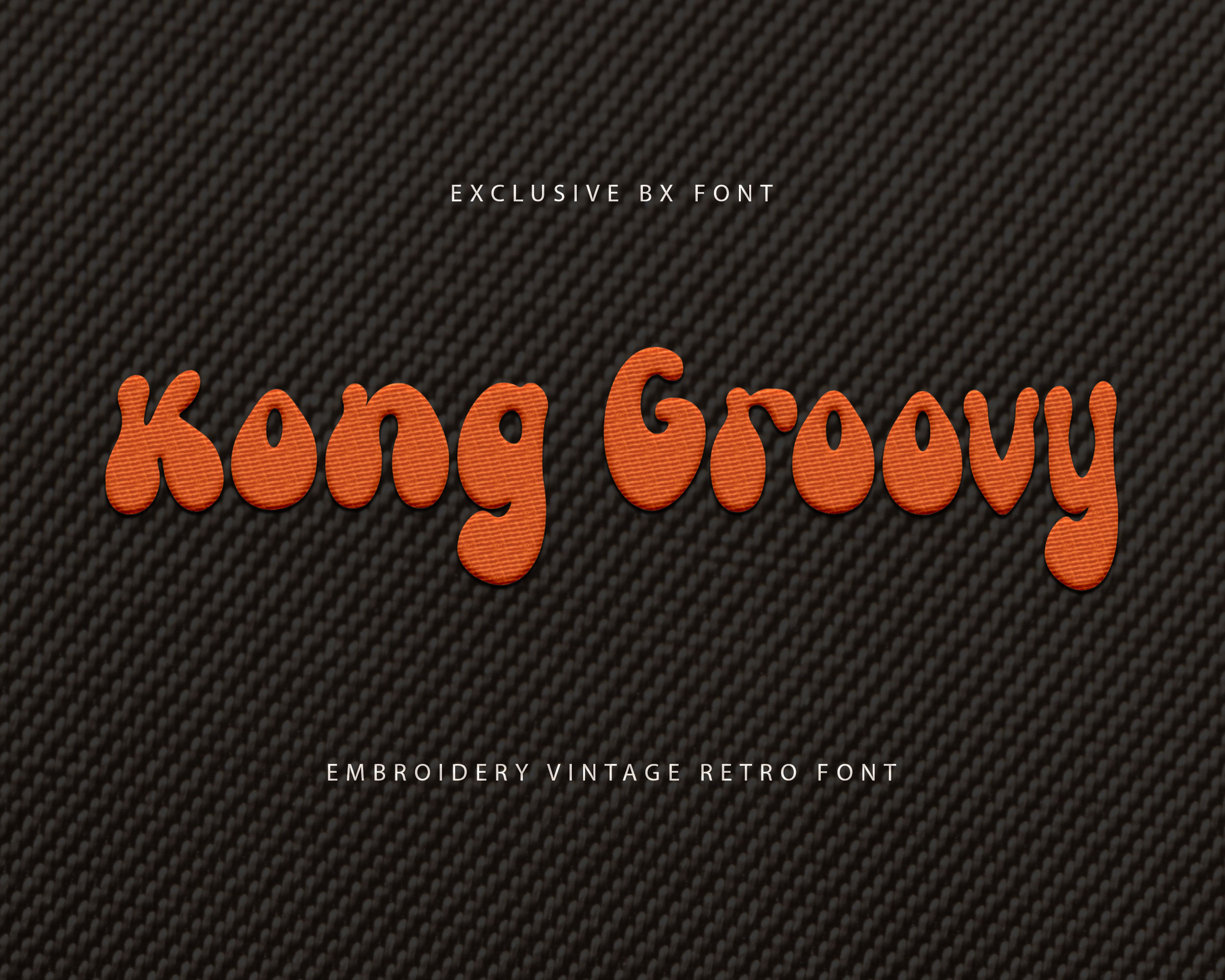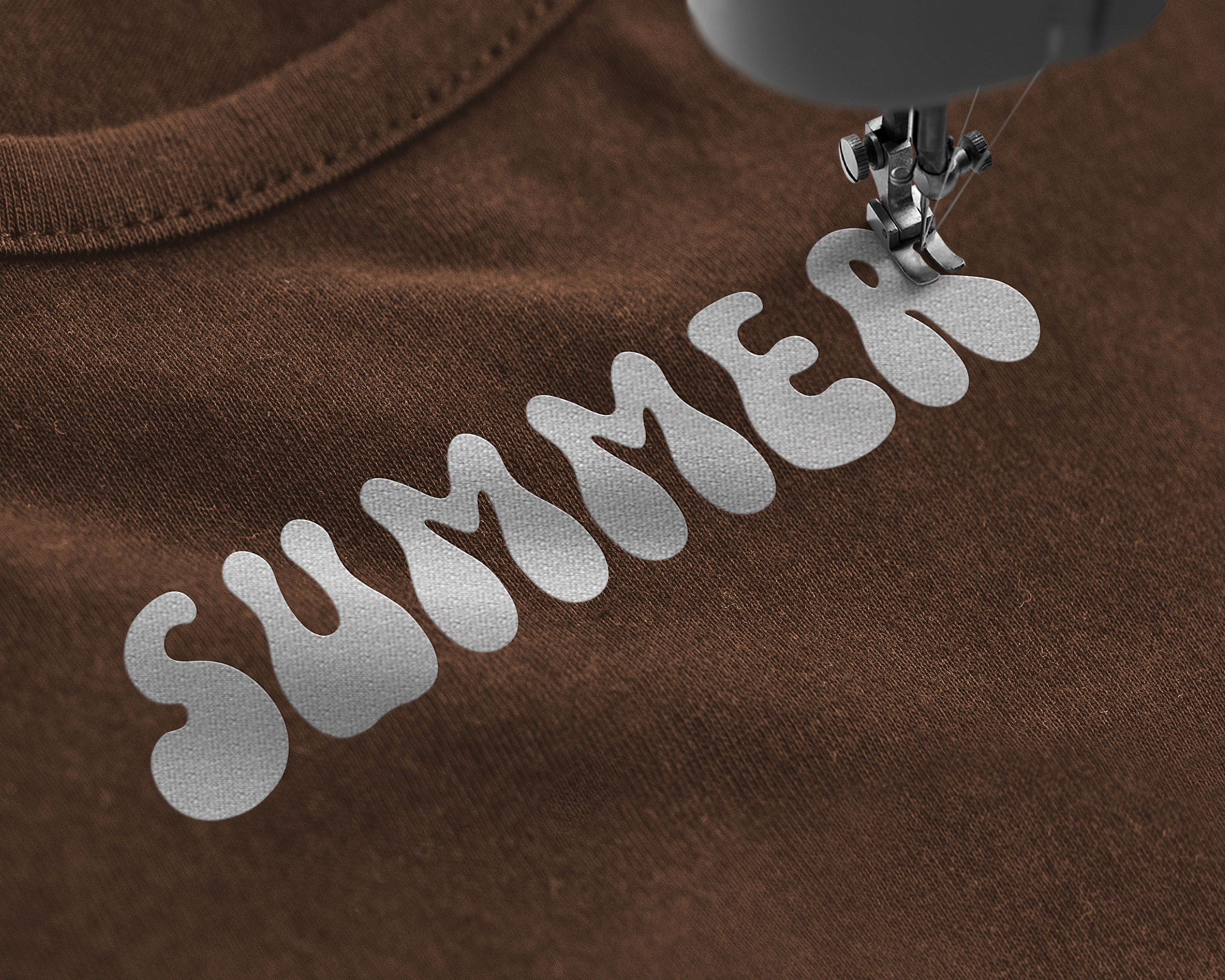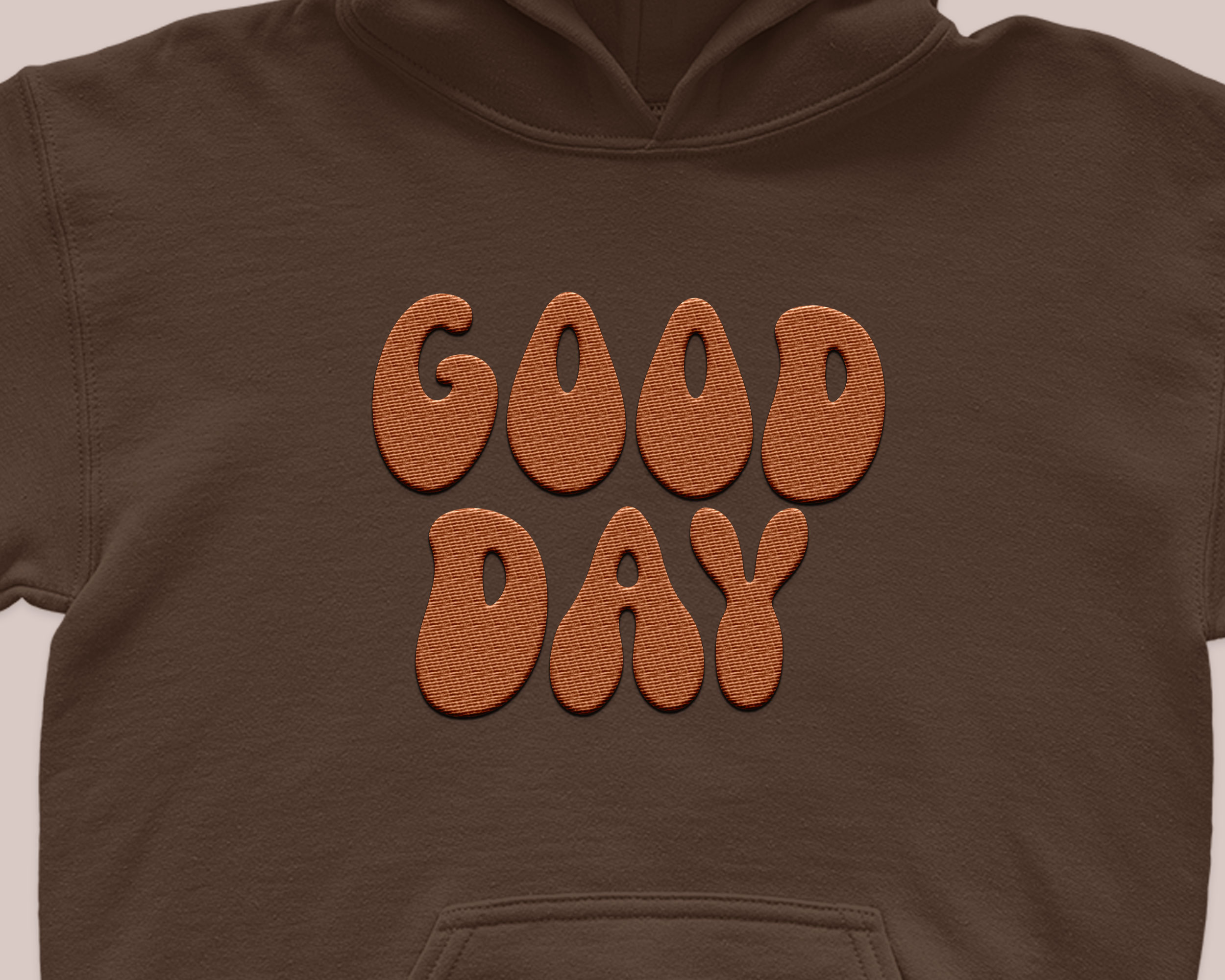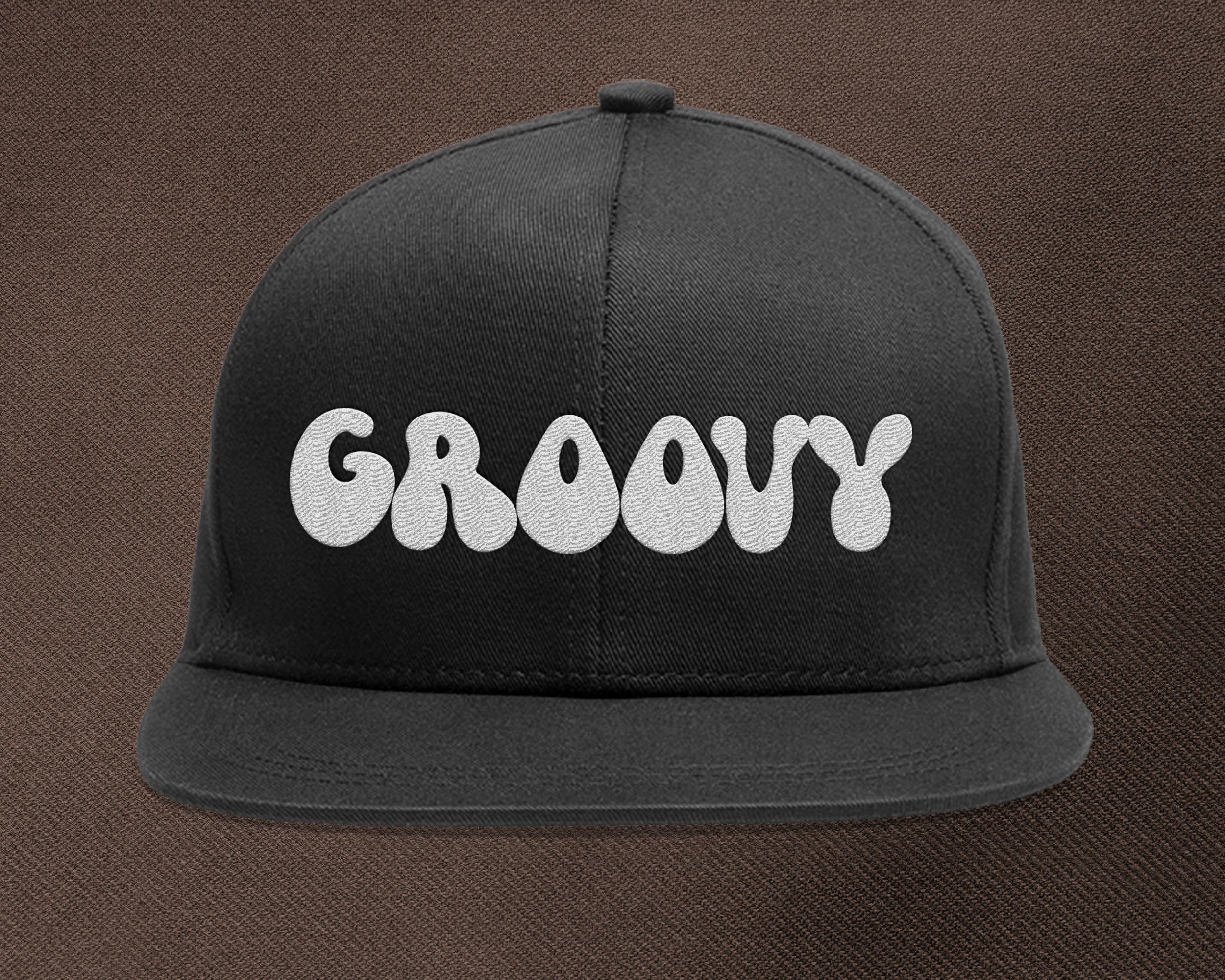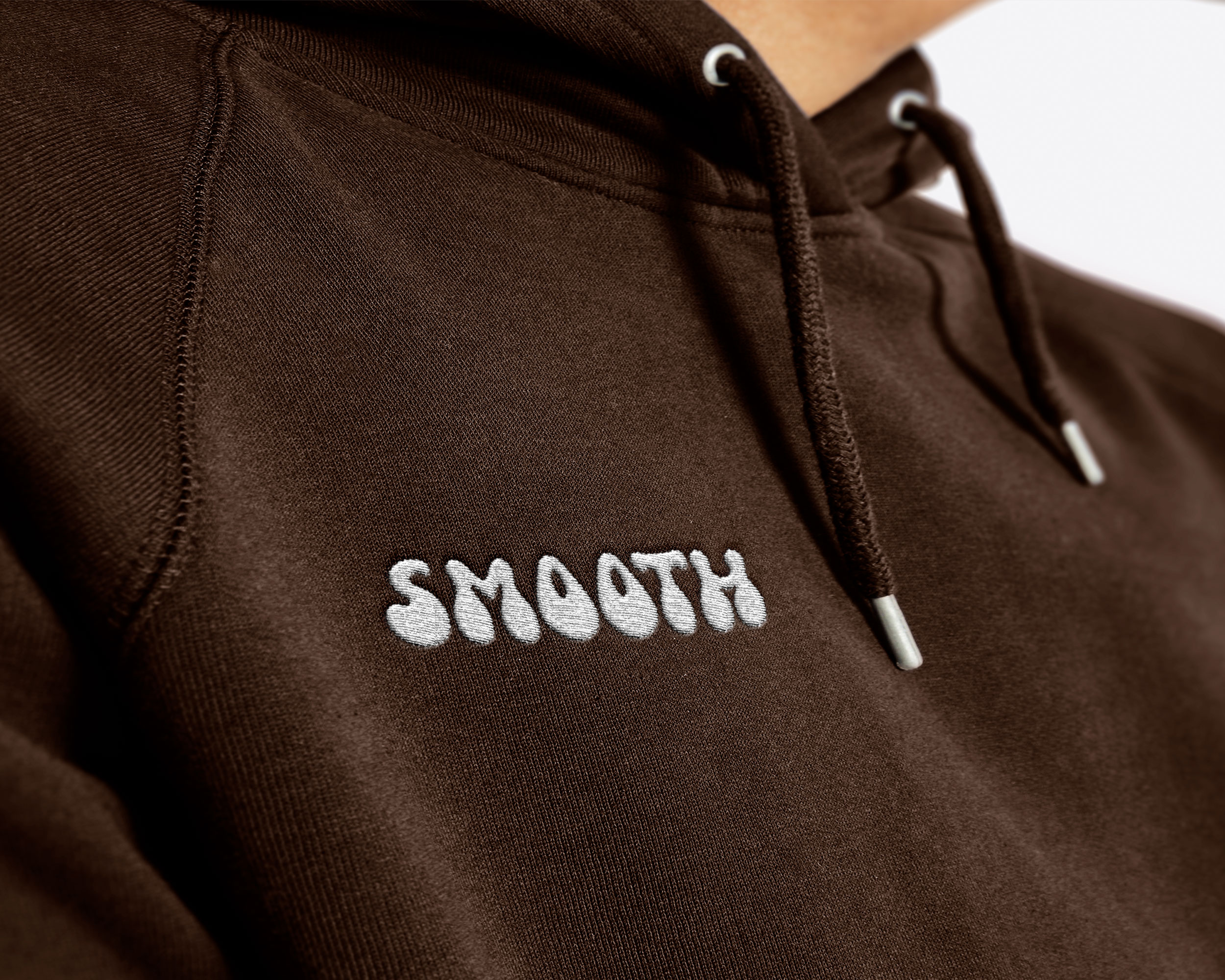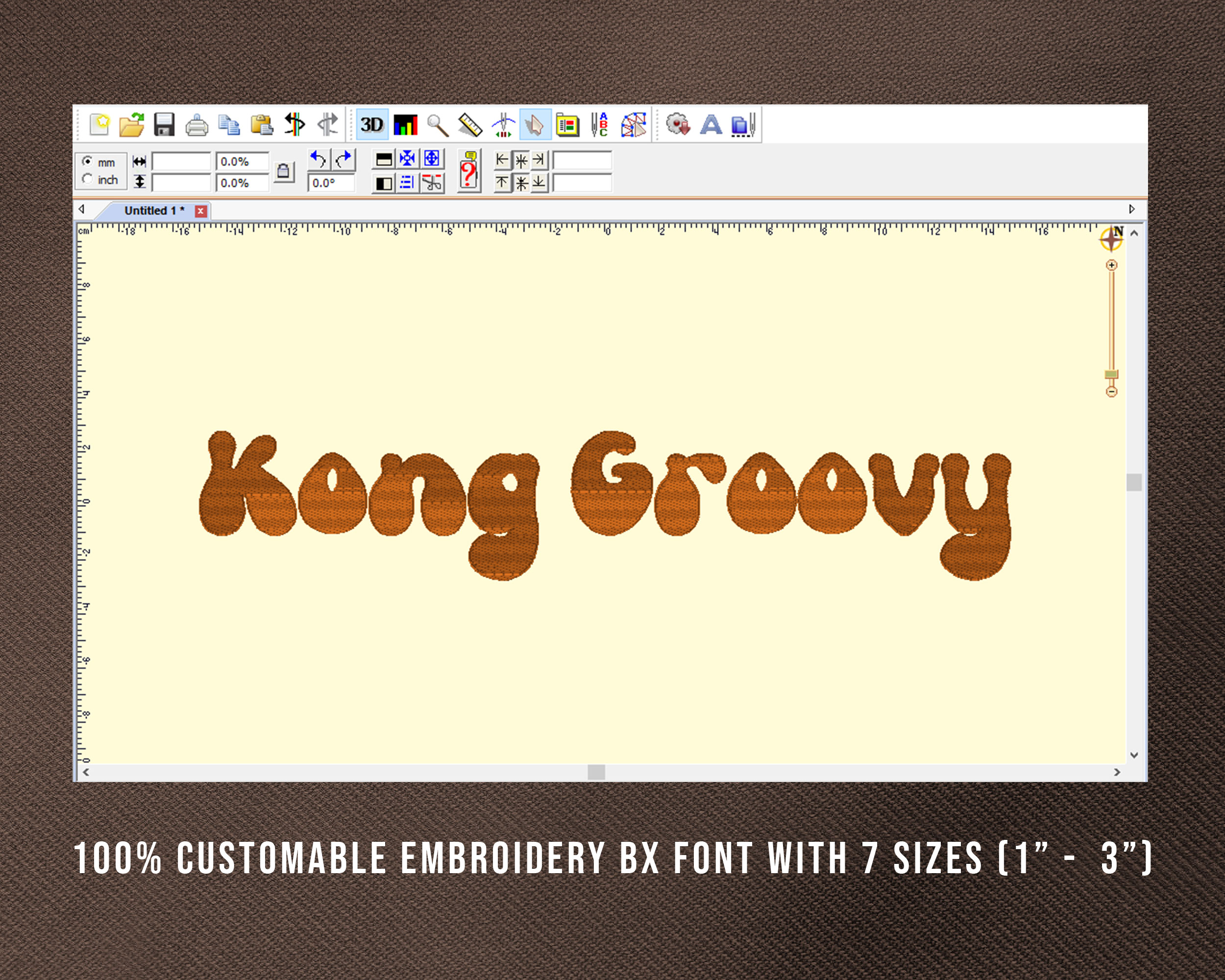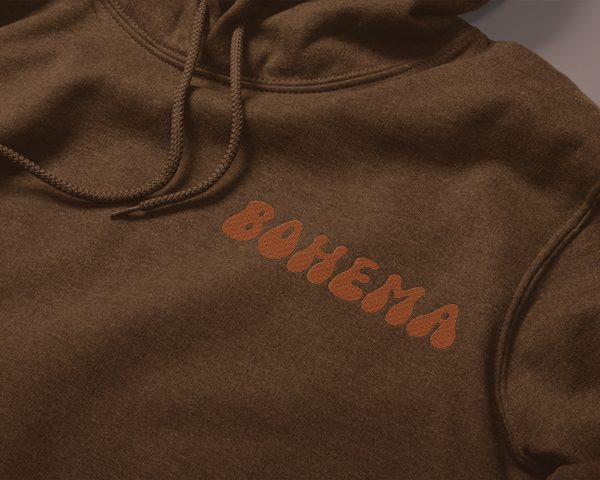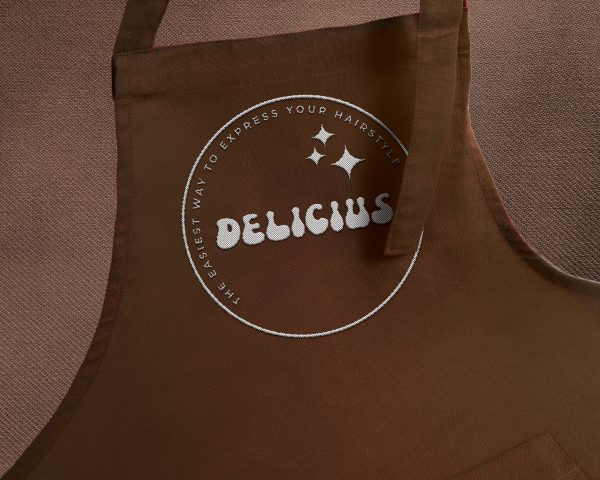
Talking about embroidered fonts will be very fun. Their appearance looks very warm and smooth making anyone who sees it will be amazed. This time, we present a new type of Embroidery font, called Kong Groovy Embroidery Font. We created this font for digital and print use. You can also choose different file sizes and kinds to use. Kong Groovy Embroidery Font is made with the appearance of standing parallel to the shape without any breaks. The font is not decorated with any lines or strokes, so it looks clean. The curved body in this font is perfect and has the same line width. This characteristic makes Kong Groovy Embroidery Font display the impression of being modern and unique when viewed carefully and combined with appropriate objects. On the other hand, confectionery businesses that will issue mass products such as sweaters, hoodies, and hats can also use this font for printing purposes in large quantities. The use of this font can be on the logo and the writing on these objects so that the object will emit a warm and simple image. If you are interested in using this font, you can view the catalog in our account. Our embroidered fonts collection is compatible for use as Figma fonts, Canva fonts, Freepik Fonts, and Adobe Fonts. They also work as Windows Fonts and Apple Fonts. For your social media needs, you can use and install the fonts in our collection.Format Included with this collection :